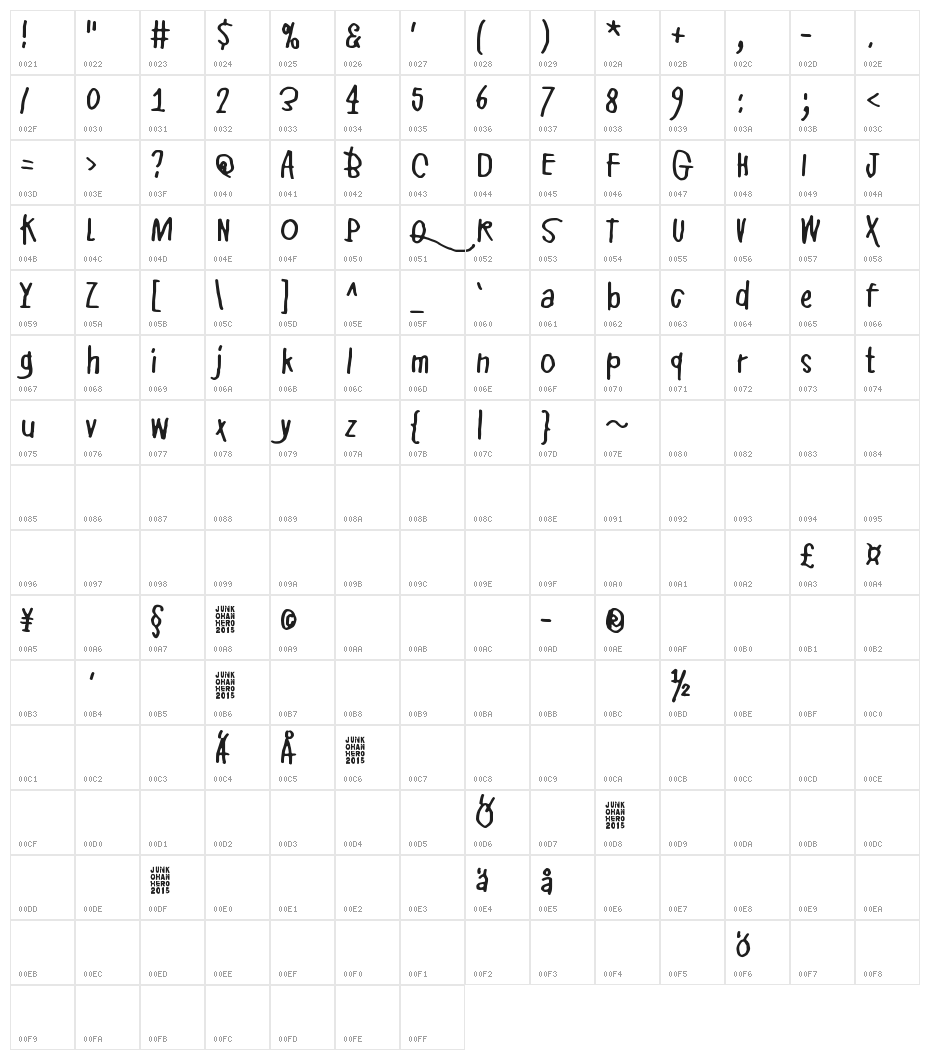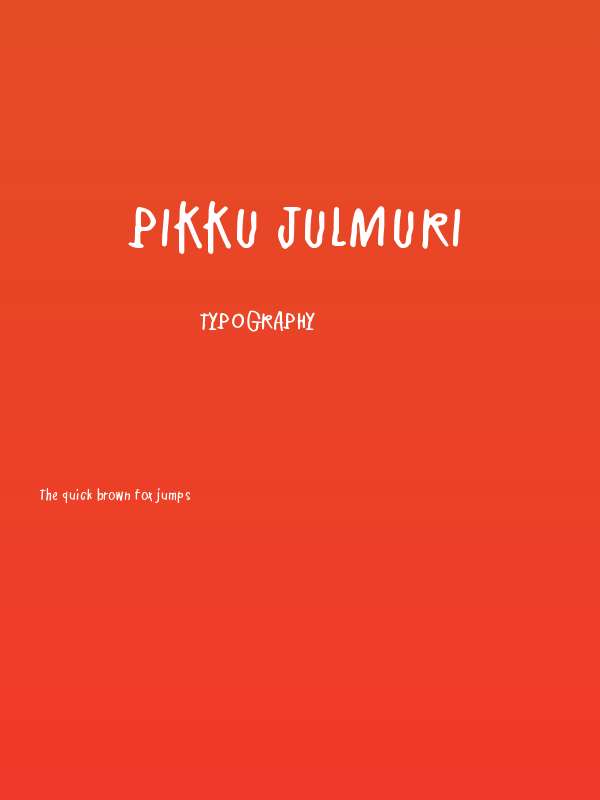
Pikku Julmuri Font
Pikku Julmuri Description
This font features a playful and informal handwritten style, characterized by its irregular strokes and casual appearance. The letters are slightly tilted, giving a dynamic and lively feel. The uppercase and lowercase letters maintain a consistent style, with rounded edges and varying stroke widths that add to its charm. The numbers and special characters follow the same playful design, making it suitable for creative projects. Its unique style makes it stand out, perfect for adding a personal touch to any design.
| Proposed Projects | Ideal for greeting cards, children's books, playful branding, and creative posters. |